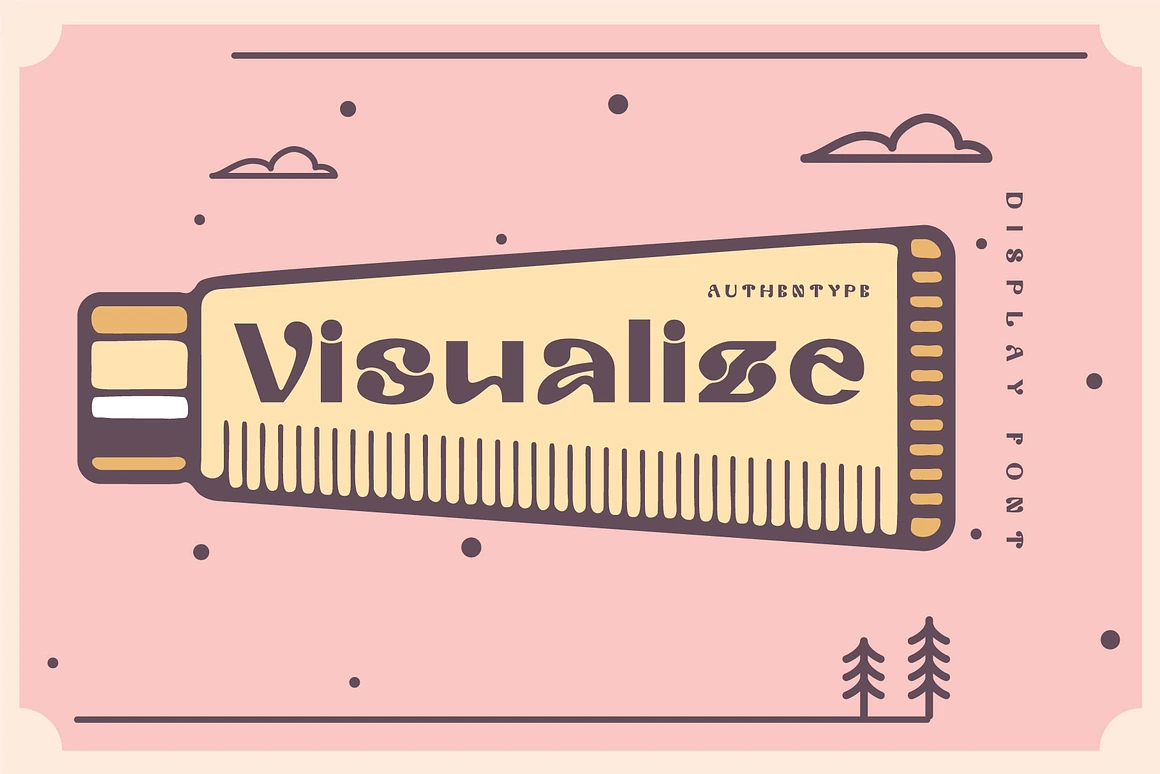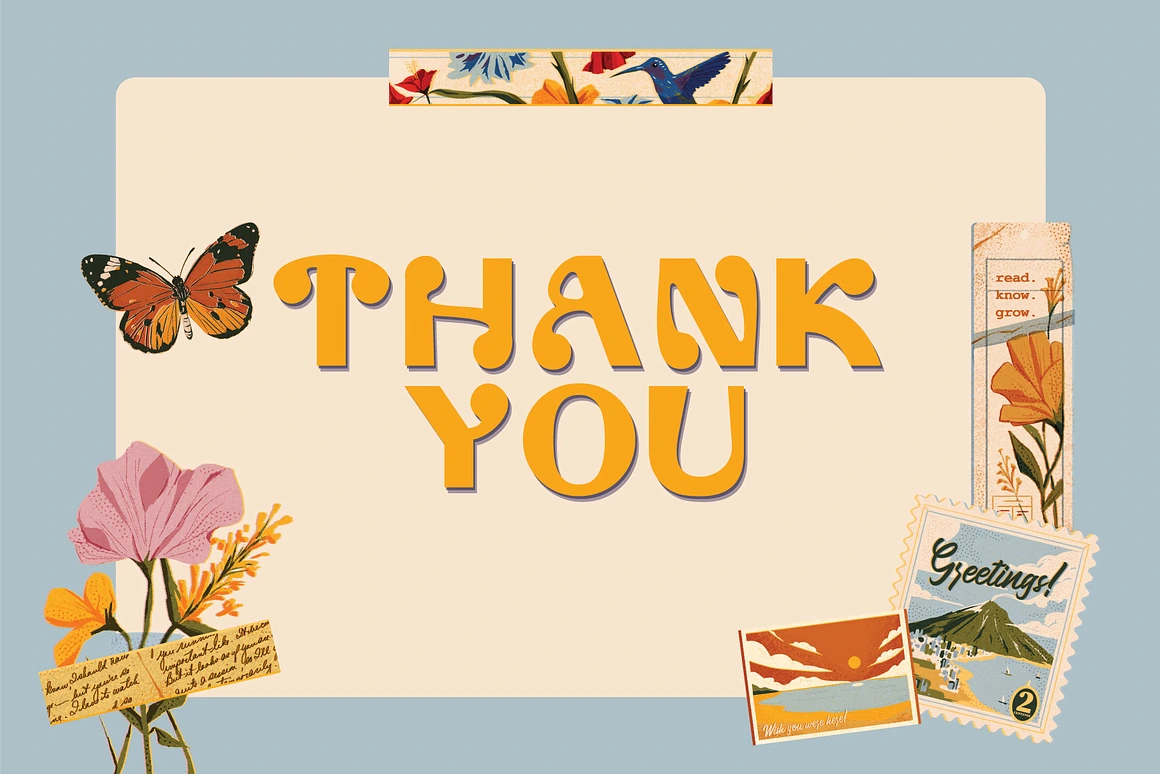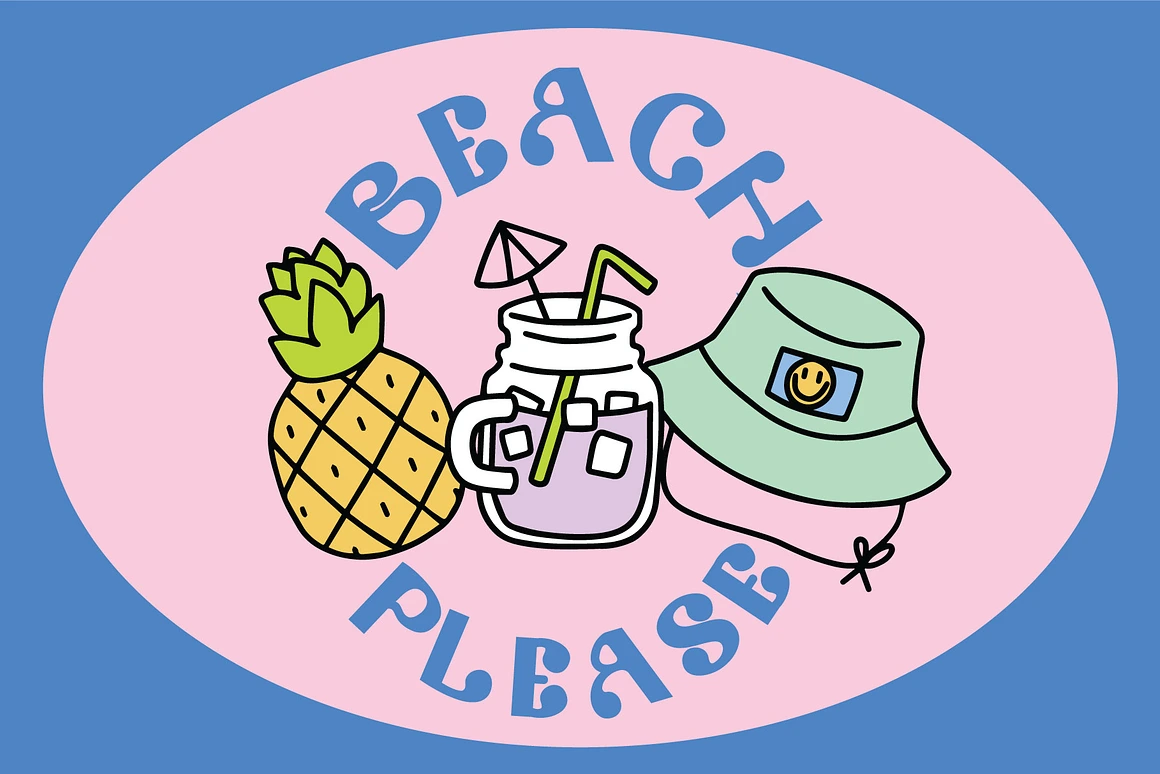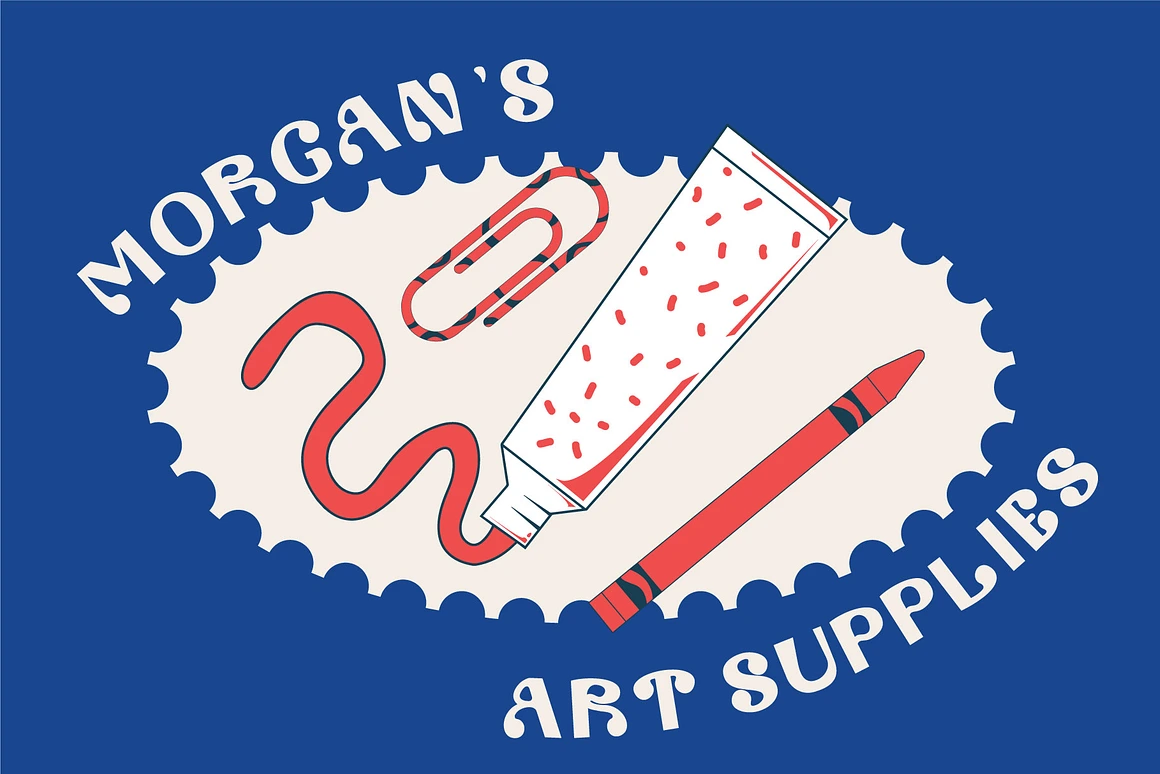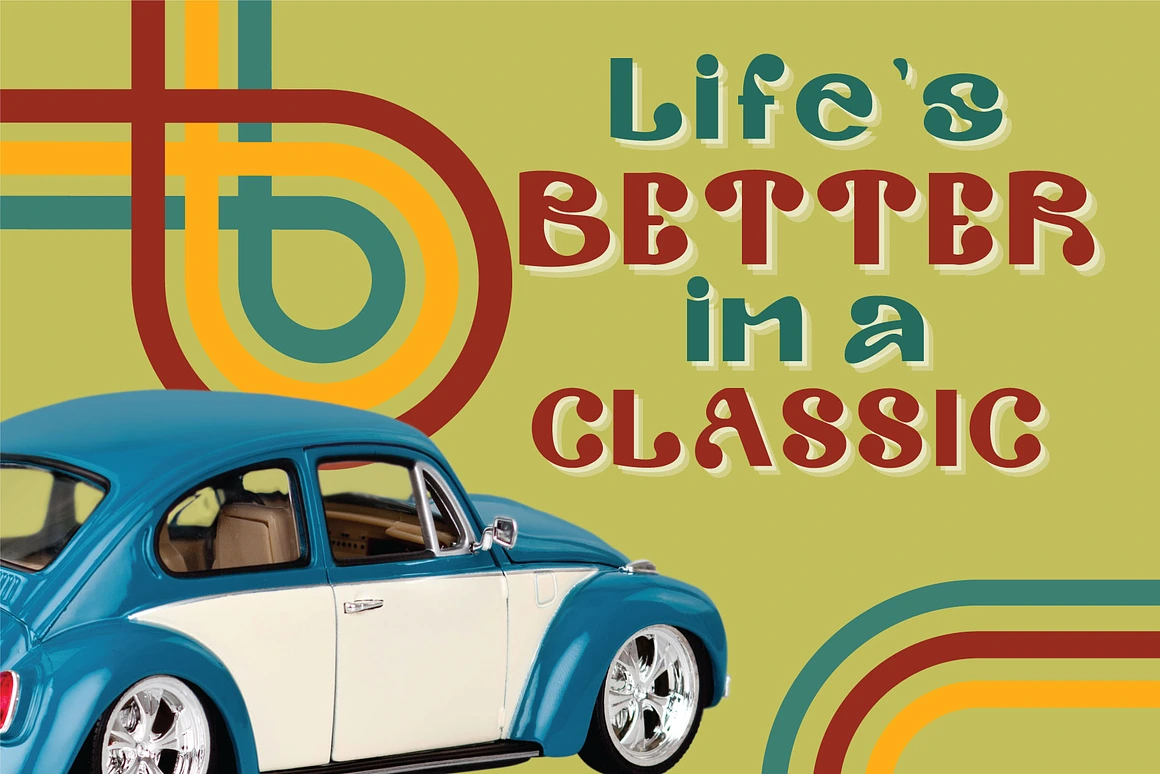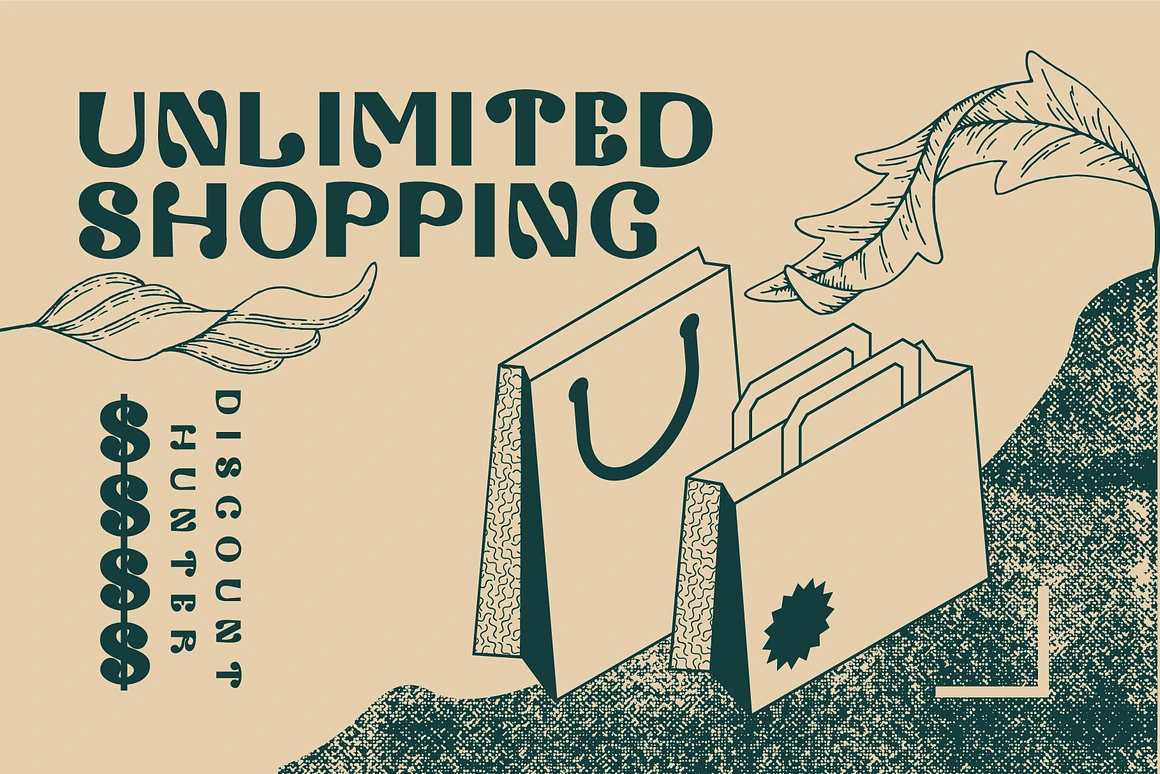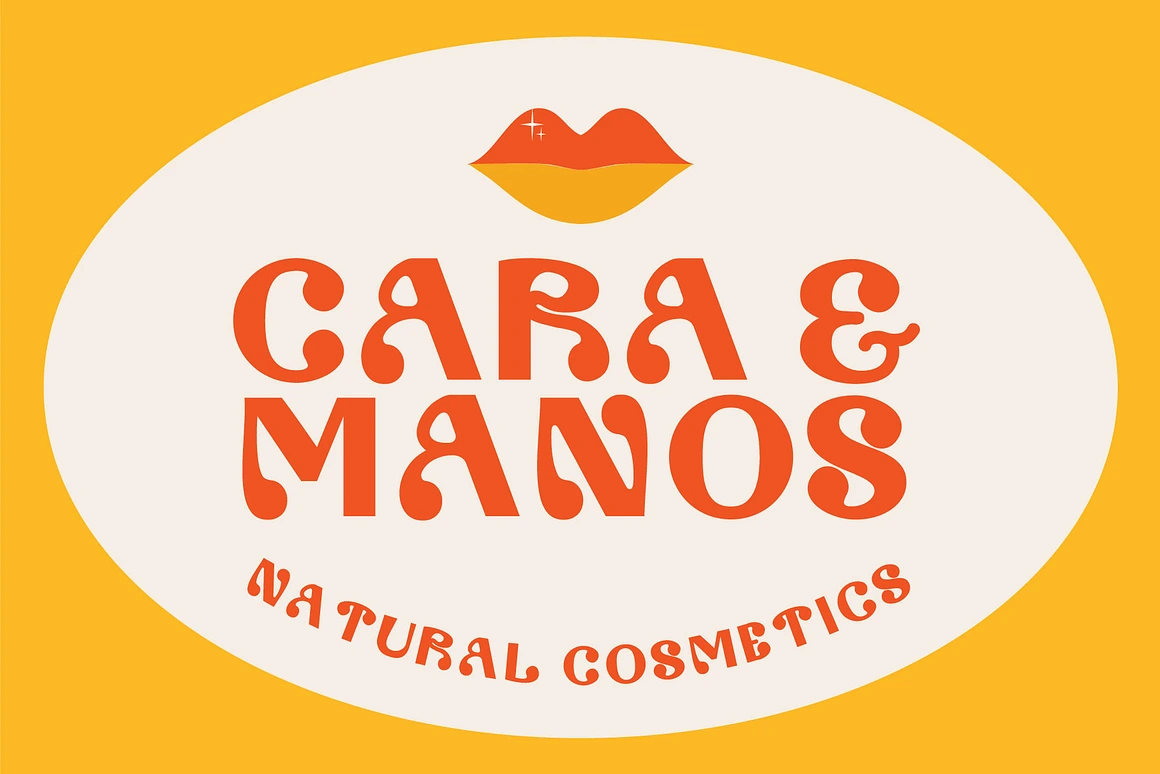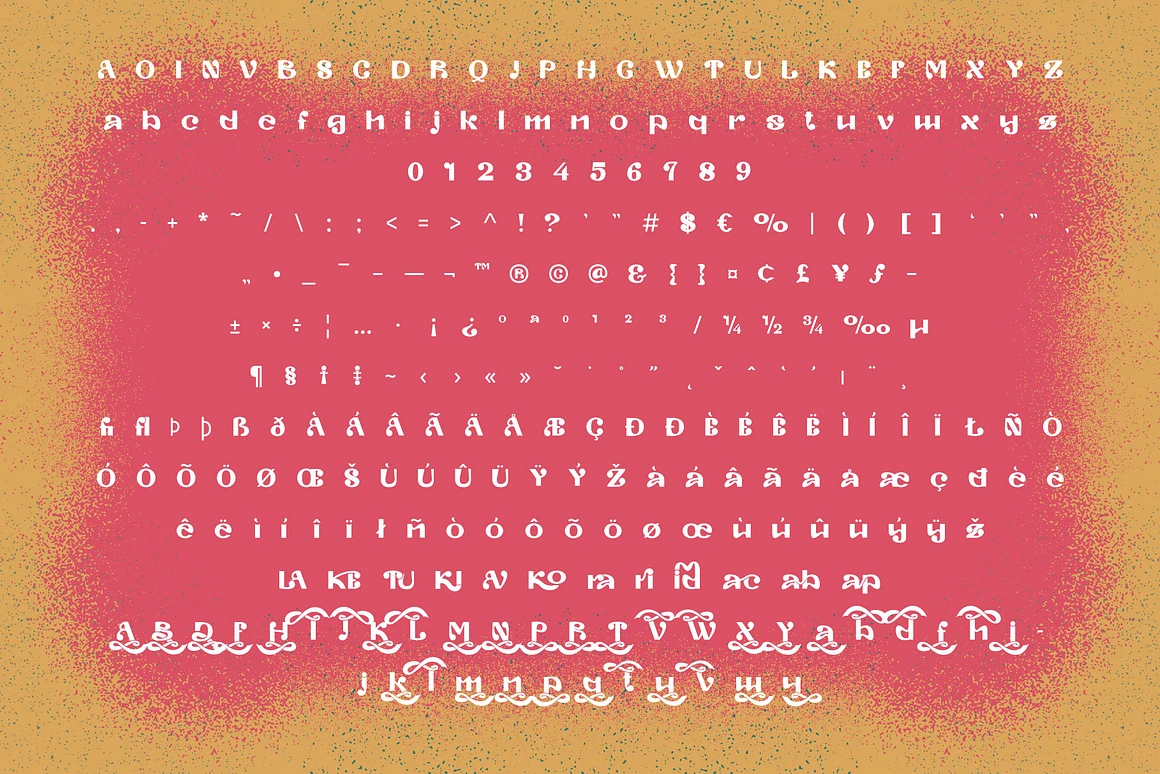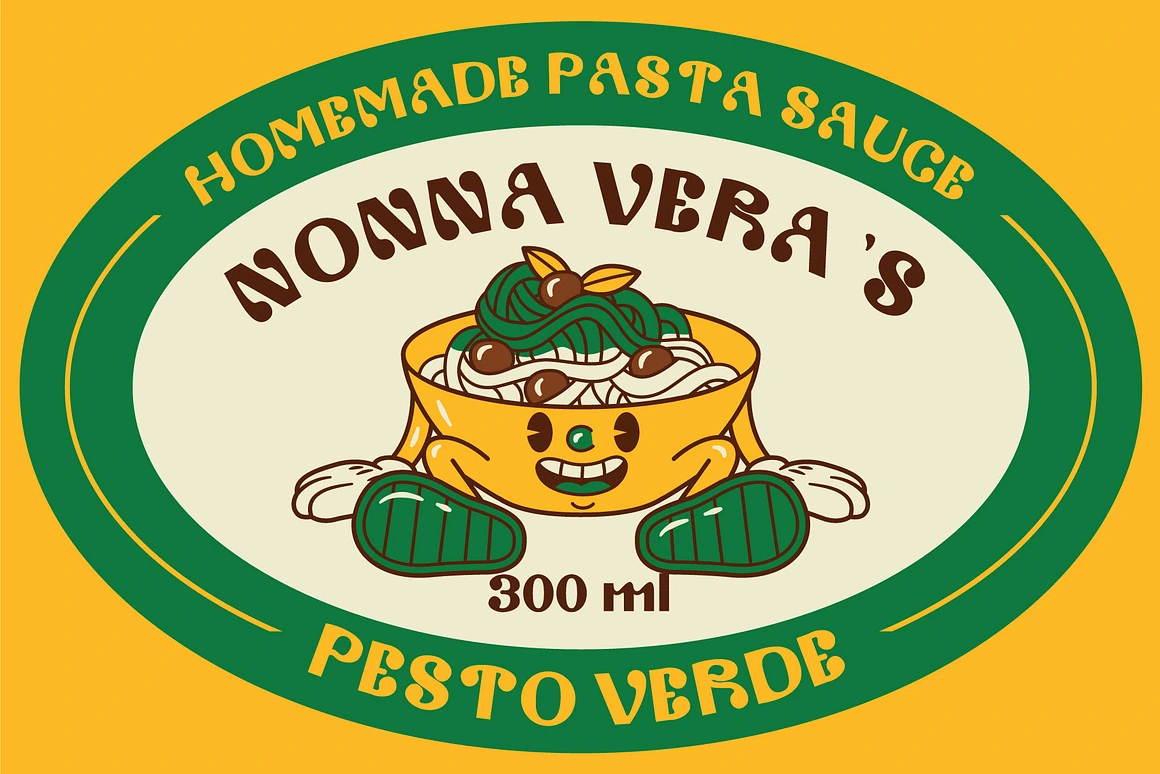
Visualize Display Font
Visualize
Visualize Display Font refers to cultural products such as music, art, literature, fashion, dance, and movies in the 1980s, which were consumed by most people in society. Very suitable for logos, titles and headings.
Standard glyphs uppercase and lowercase letters
Numerals, a large range of punctuation and ligatures.
Multilingual
Fonts include multilingual support for; ä ö ü Ä Ö Ü ß ¿¡